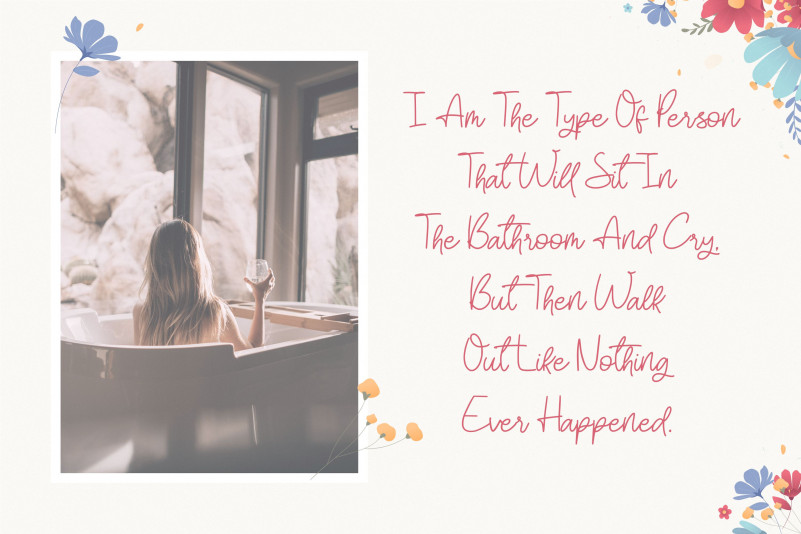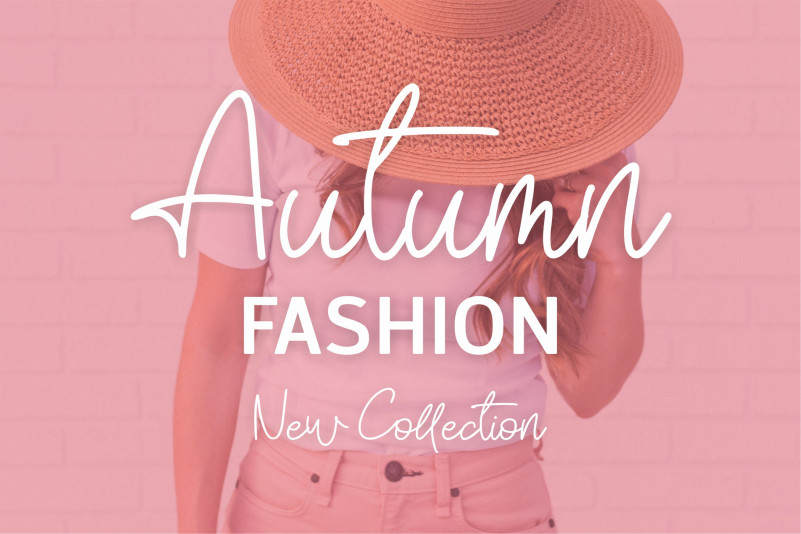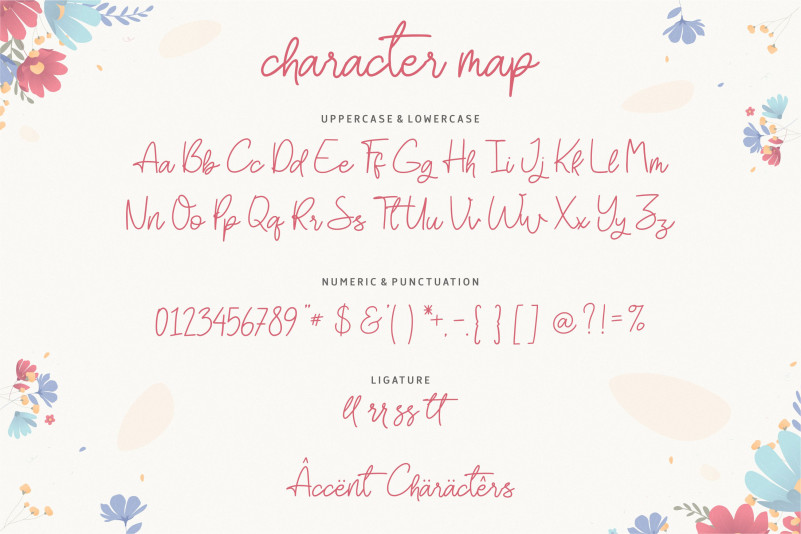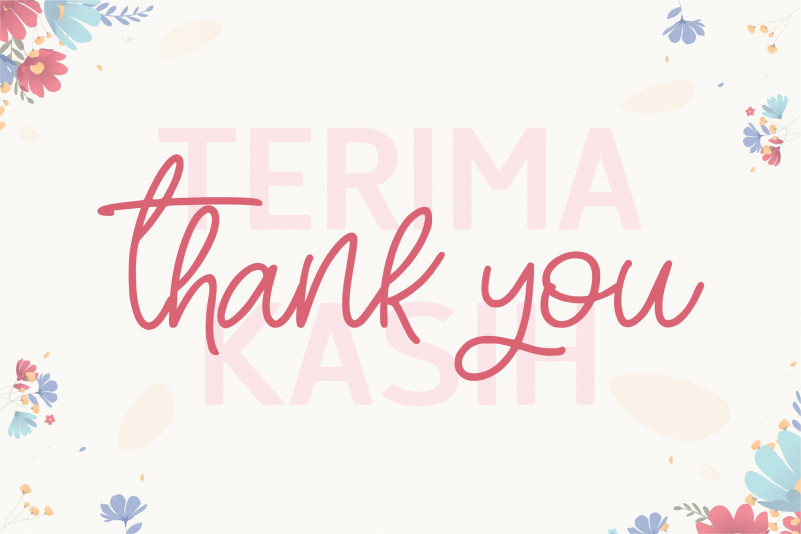
Mayhell Font
Mayhell Handwritten Font
It’s can be used for wide ranges of application, such as wedding design, branding project, logo, poster, name card, invitations, social media posts, and others.
Feature Ligature and Alternates.
Paily Studio